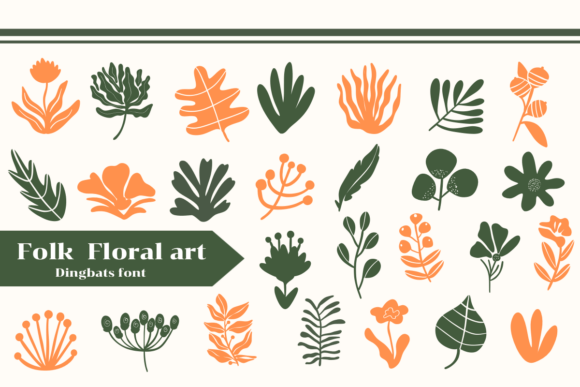
Folk Floral Art Font: Elevate Your Designs with Timeless Charm and Organic Elegance
In the world of digital design, fonts play a crucial role in conveying the tone and aesthetic of a project. For those seeking to infuse their creations with a sense of nostalgia, whimsy, and natural beauty, the Folk Floral Art Font is an exceptional choice. This delightful dingbats font is inspired by traditional folk art and features hand-drawn floral and botanical motifs that are sure to bring a touch of timeless charm and organic elegance to any design.
What is Folk Floral Art Font?
Folk Floral Art Font is a unique and versatile dingbats font that showcases a collection of hand-drawn floral and botanical motifs. Each glyph in this font is meticulously crafted to capture the essence of traditional folk art, with whimsical leaves, wildflowers, and nature-inspired details rendered in a bold and clean silhouette. The result is a font that exudes a sense of rustic charm and sophistication, making it perfect for a wide range of design applications.
Inspiration from Traditional Folk Art
The Folk Floral Art Font draws inspiration from the traditional folk art that has been a staple of human creativity for centuries. Folk art, with its characteristic simplicity, naivety, and emphasis on storytelling, has long been a source of inspiration for artists, designers, and craftspeople. By tapping into this rich cultural heritage, the Folk Floral Art Font brings a sense of authenticity and timelessness to modern designs, allowing creators to evoke a bygone era while still conveying a fresh and contemporary aesthetic.
Key Features of Folk Floral Art Font
The Folk Floral Art Font boasts a range of features that make it an attractive choice for designers seeking to add a touch of organic elegance to their work. Some of the key features of this delightful font include:
- Hand-drawn floral and botanical motifs: Each glyph in the Folk Floral Art Font is carefully hand-drawn to ensure a unique and organic feel.
- Bold and clean silhouette: The font’s bold and clean lines ensure that the motifs are easily recognizable and versatile enough to be used in a variety of design contexts.
- Whimsical leaves and wildflowers: The font features a range of whimsical leaves and wildflowers, perfect for adding a touch of natural beauty to designs.
- Nature-inspired details: From acorns to butterflies, the font includes a range of nature-inspired details that can be used to add depth and interest to designs.
Use Cases for Folk Floral Art Font
The Folk Floral Art Font is a versatile design tool that can be used in a wide range of applications. Some of the most popular use cases for this font include:
- Craft projects: The font’s whimsical and organic feel makes it perfect for craft projects, such as handmade cards, gift tags, and scrapbooking.
- fabric prints: The Folk Floral Art Font can be used to create beautiful and unique fabric prints, perfect for home decor, clothing, and accessories.
- Scrapbooking: The font’s floral and botanical motifs make it a natural fit for scrapbooking and other paper crafts.
- Branding: The font’s bold and clean lines make it suitable for use in branding and advertising, particularly for businesses seeking to evoke a sense of natural elegance and sophistication.
- Rustic packaging: The Folk Floral Art Font can be used to add a touch of rustic charm to packaging designs, perfect for businesses seeking to stand out in a crowded marketplace.
Benefits of Using Folk Floral Art Font
The Folk Floral Art Font offers a range of benefits for designers seeking to elevate their work with a touch of timeless charm and organic elegance. Some of the key benefits of using this font include:
- Unique and distinctive aesthetic: The font’s hand-drawn floral and botanical motifs ensure a unique and distinctive aesthetic that sets it apart from more generic fonts.
- Versatility: The font’s bold and clean lines make it versatile enough to be used in a wide range of design applications.
- High-quality design: The font is designed to high standards, ensuring a crisp and clean appearance even at small sizes.
| Font Name | Folk Floral Art Font |
The Folk Floral Art Font is a delightful dingbats font that brings a touch of timeless charm and organic elegance to any design. With its hand-drawn floral and botanical motifs, bold and clean silhouette, and whimsical leaves and wildflowers, this font is perfect for craft projects, fabric prints, scrapbooking, branding, and rustic packaging. Whether you’re a seasoned designer or just starting out, the Folk Floral Art Font is an exceptional choice for anyone seeking to add a touch of natural beauty and sophistication to their work.